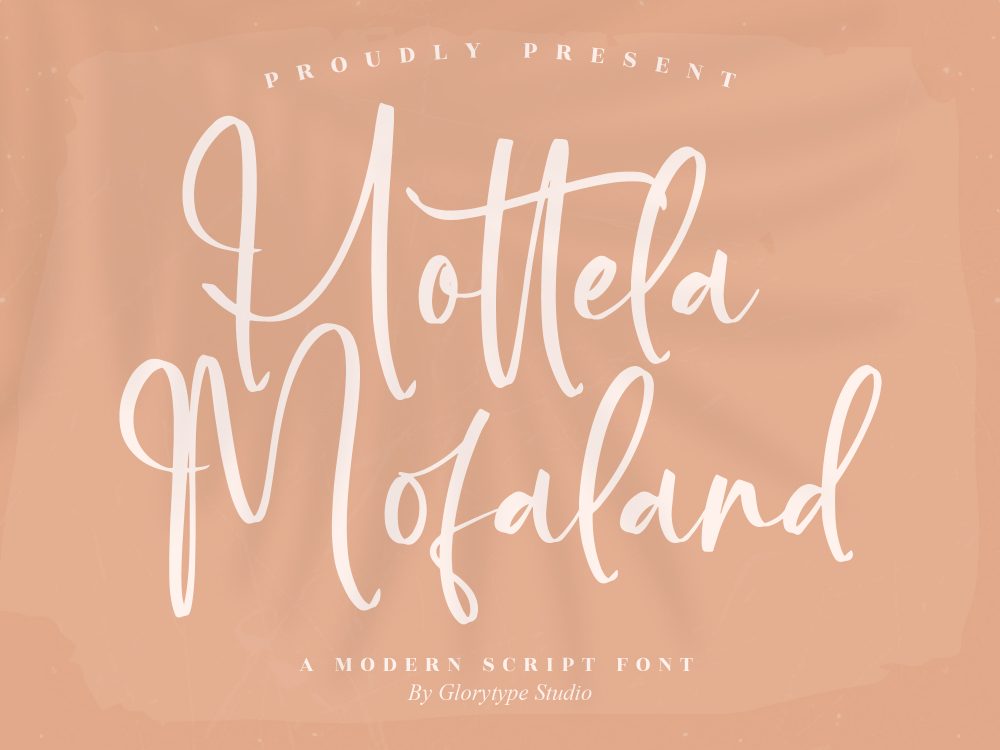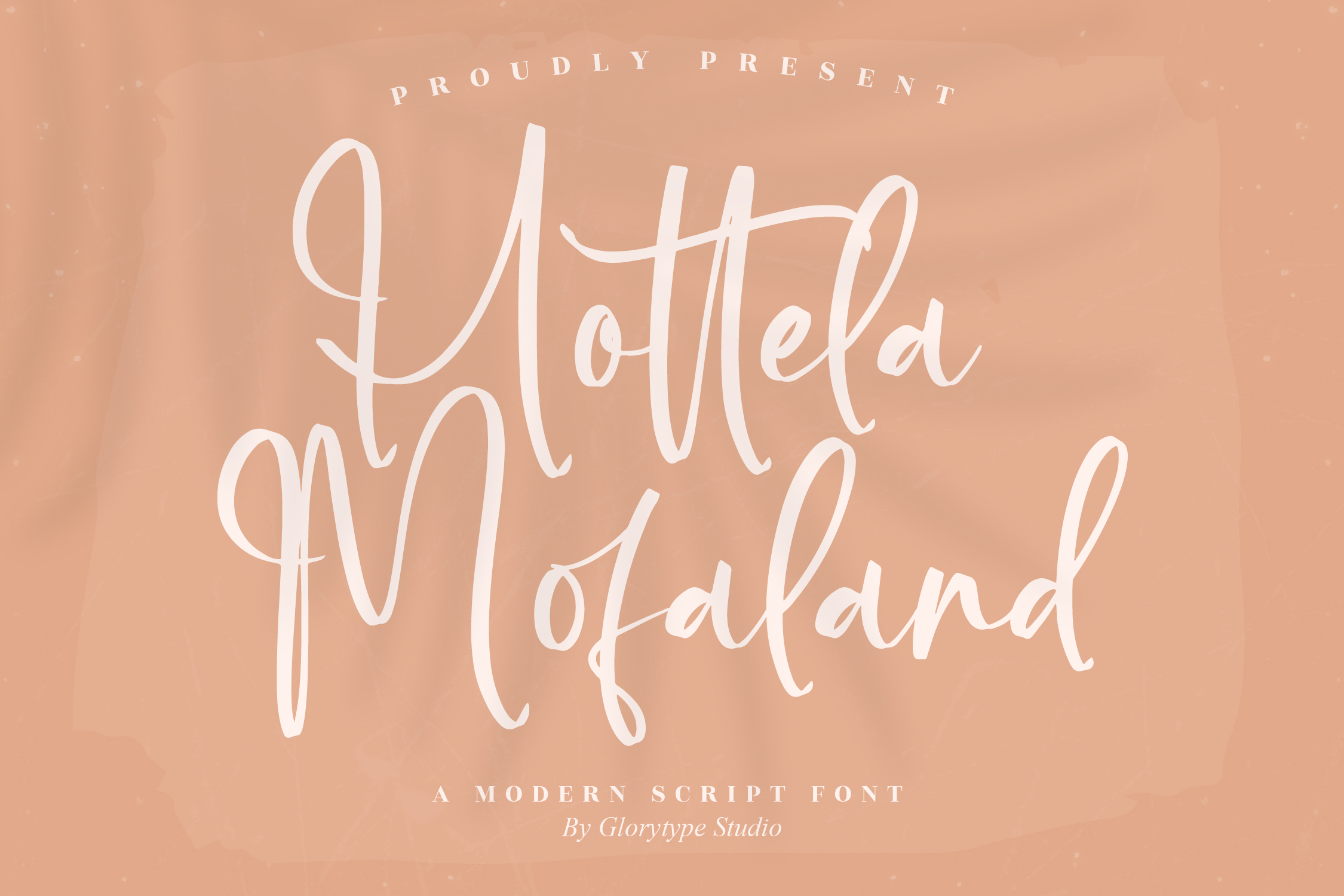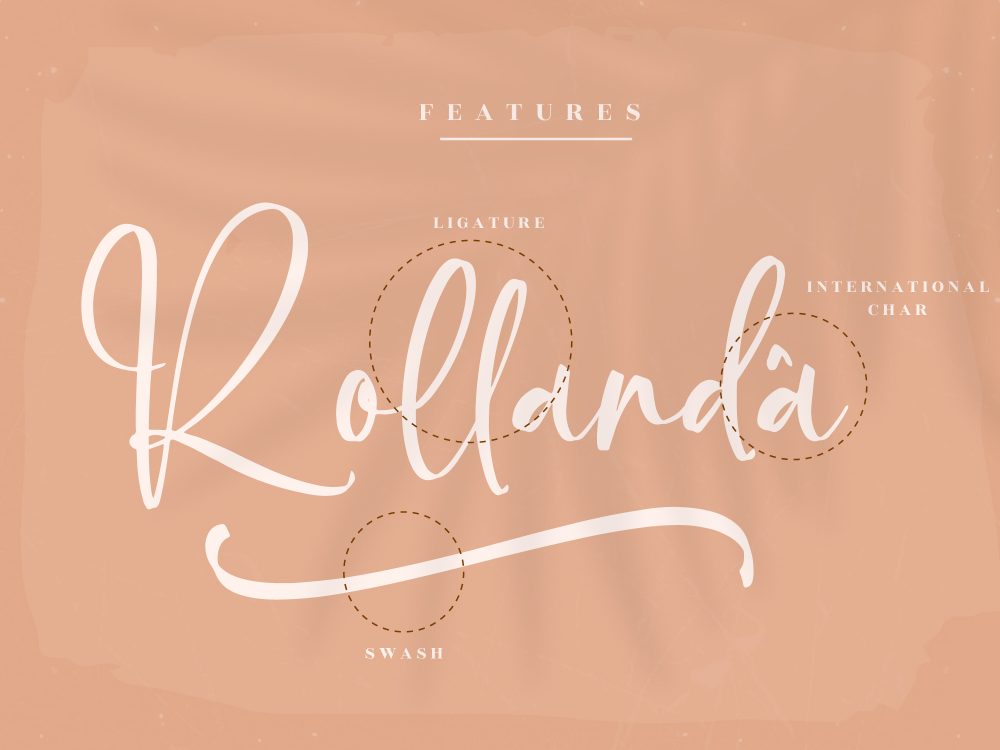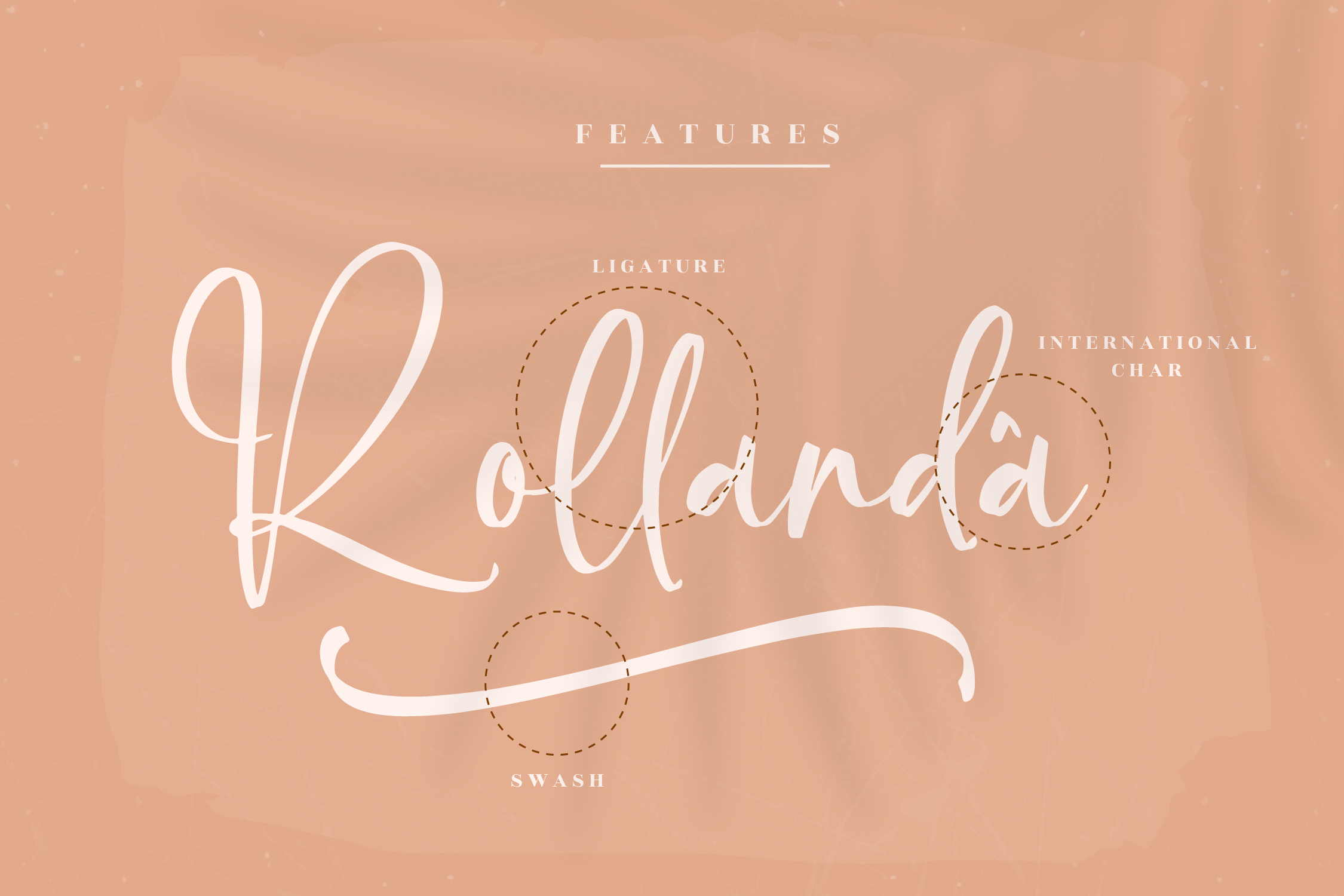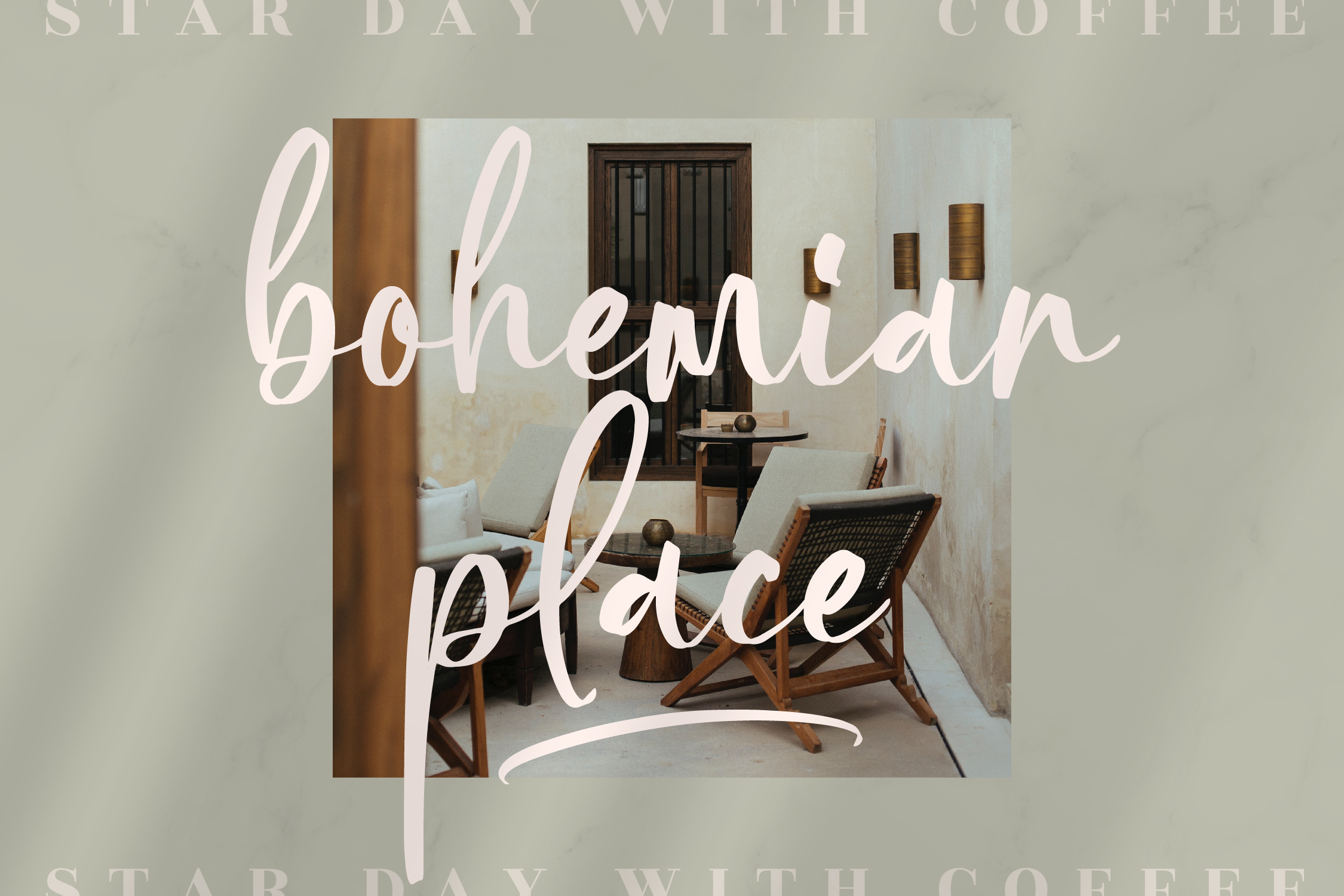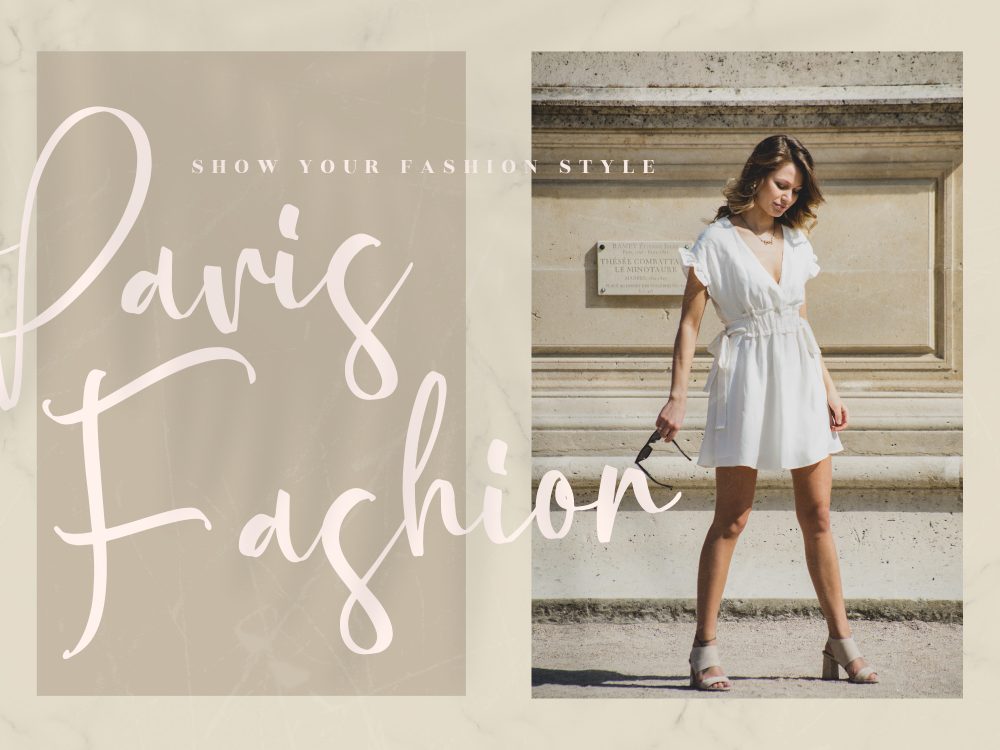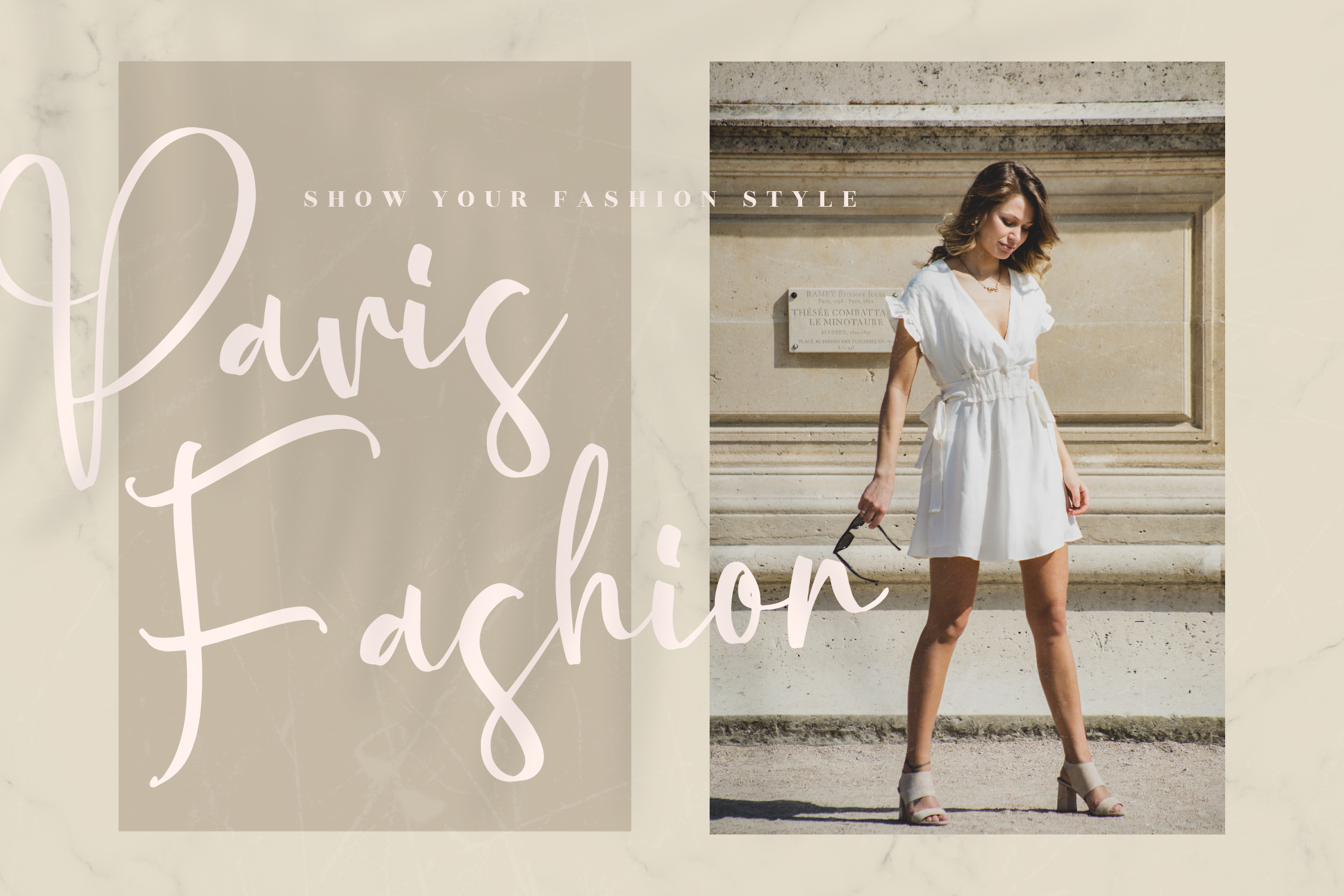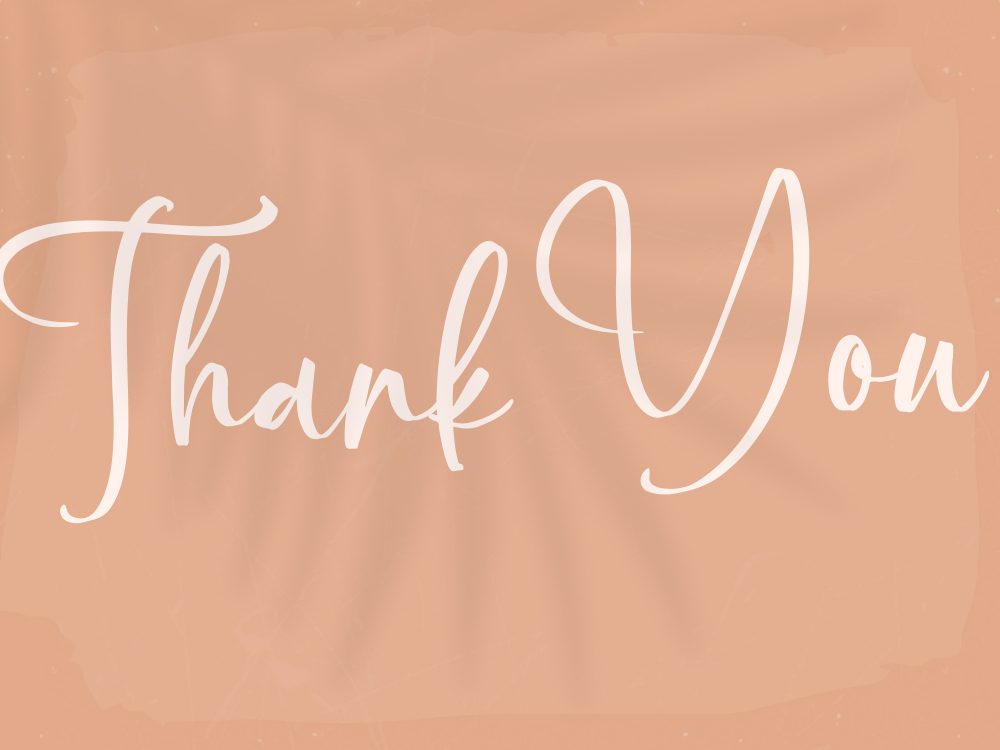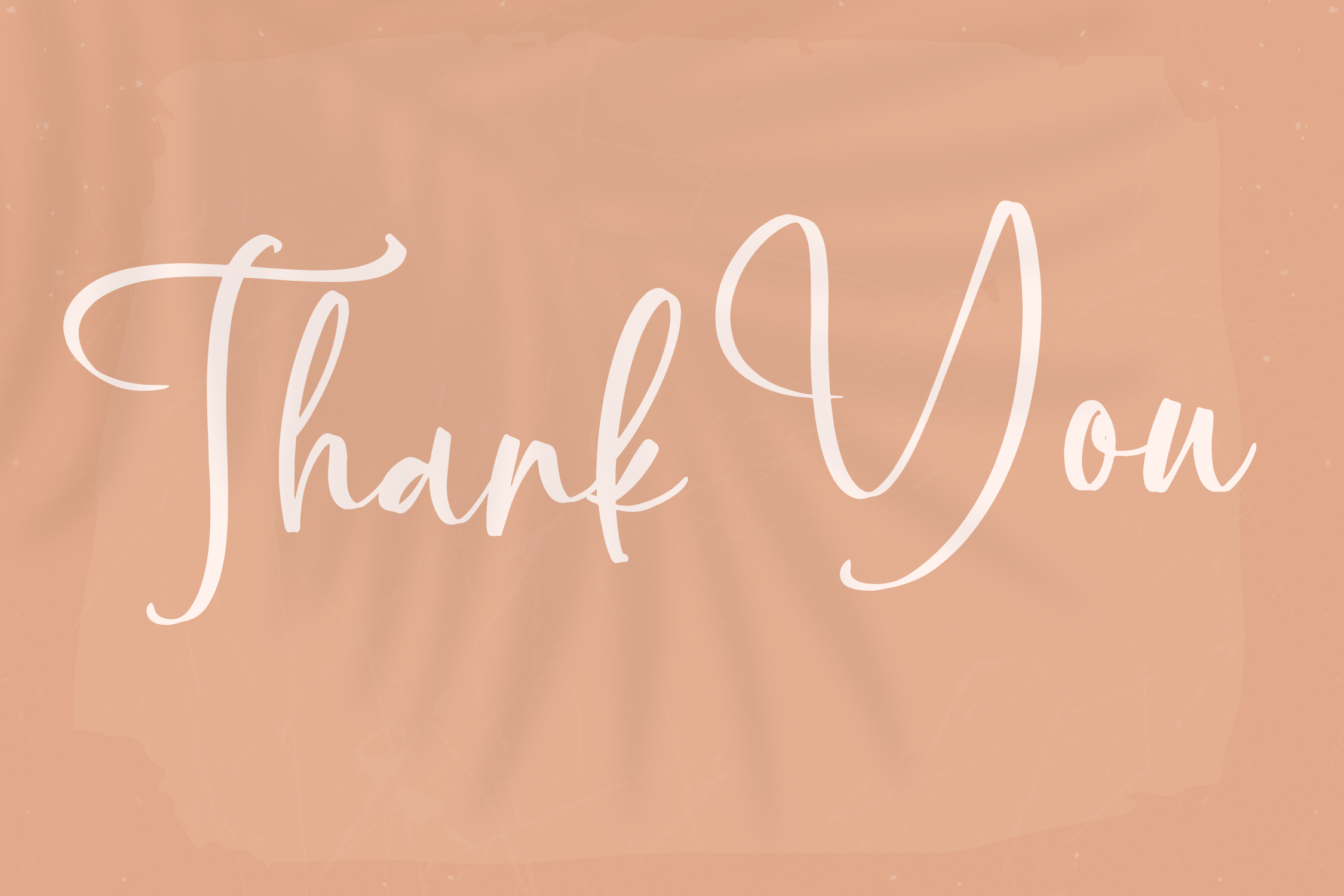
Hottela Mofaland Free Font
Hottela Mofaland Free Font is an interesting beautiful handwritten font that simulates detailed brush writing and is very suitable for creating various design projects that require a scripted font. These can be posters, invitations, cards, branding, flyer prints, and more. If you wish to access more features and use them for commercial work please buy the full version.